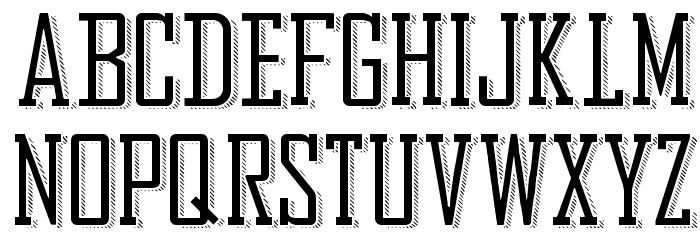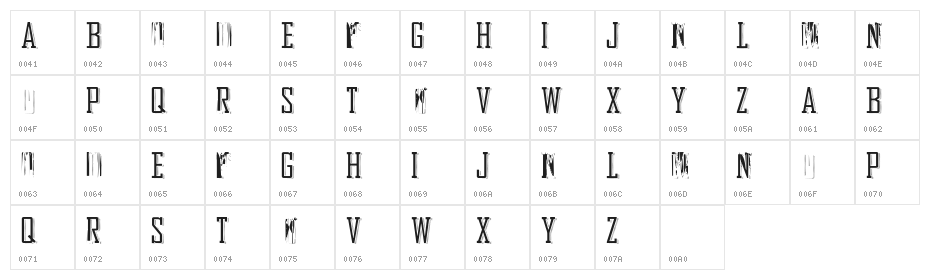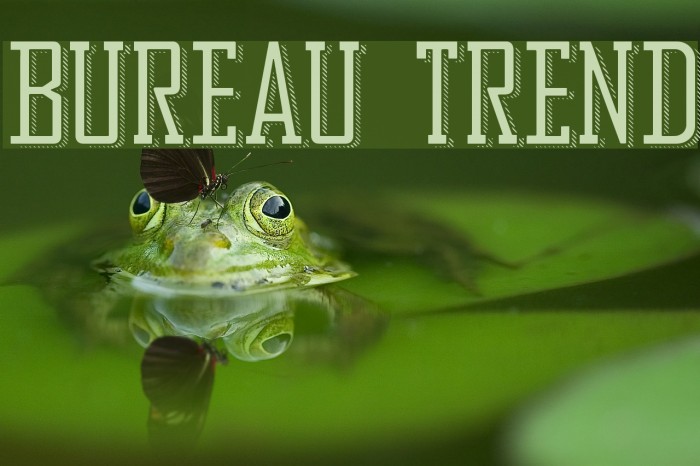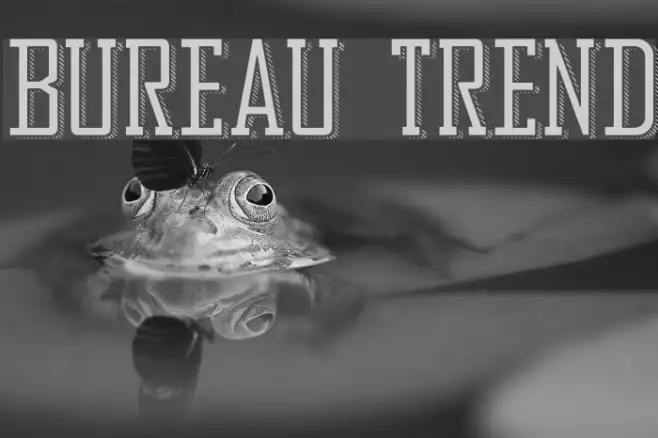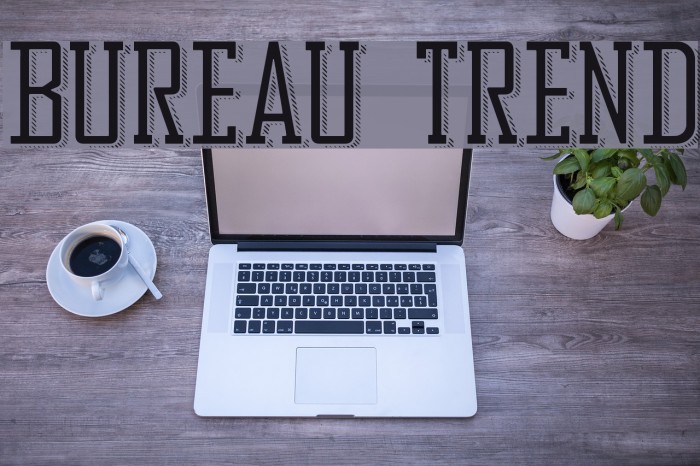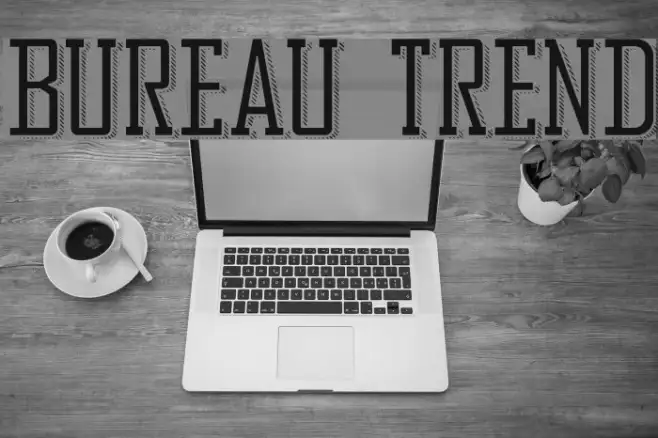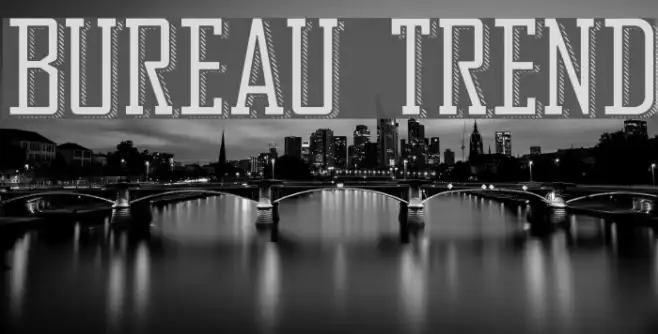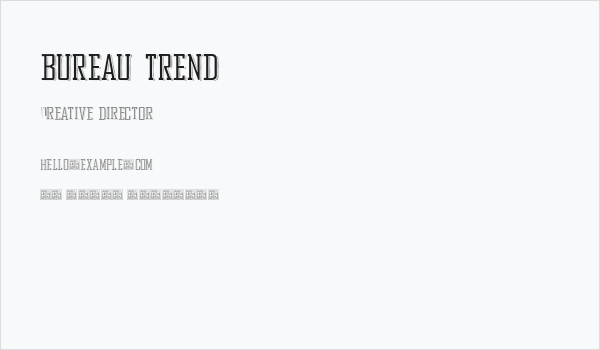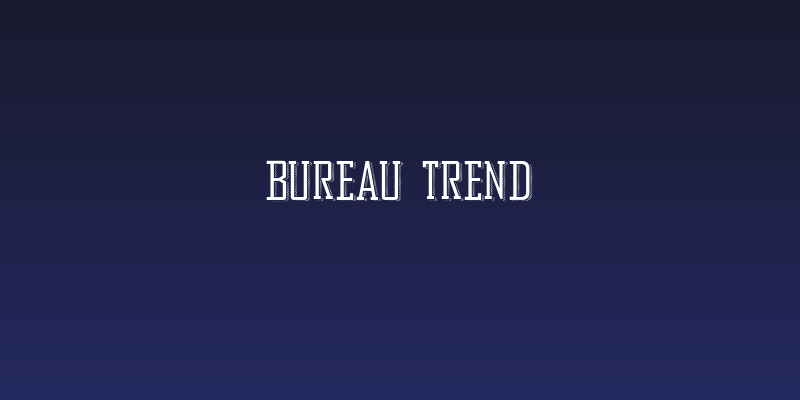
Bureau Trend Font
Bureau Trend Description
This font features a bold and striking design with a distinct vintage flair. The letters are characterized by their tall, narrow structure and prominent serifs, giving them a classic yet modern appeal. The unique diagonal hatching within each character adds texture and depth, making the font stand out. Its high contrast between thick and thin strokes enhances readability while maintaining an artistic edge. This font is perfect for creating eye-catching headlines and logos that demand attention.
| Proposed Projects | Ideal for vintage-themed posters, branding, and logo design, as well as editorial headlines. |